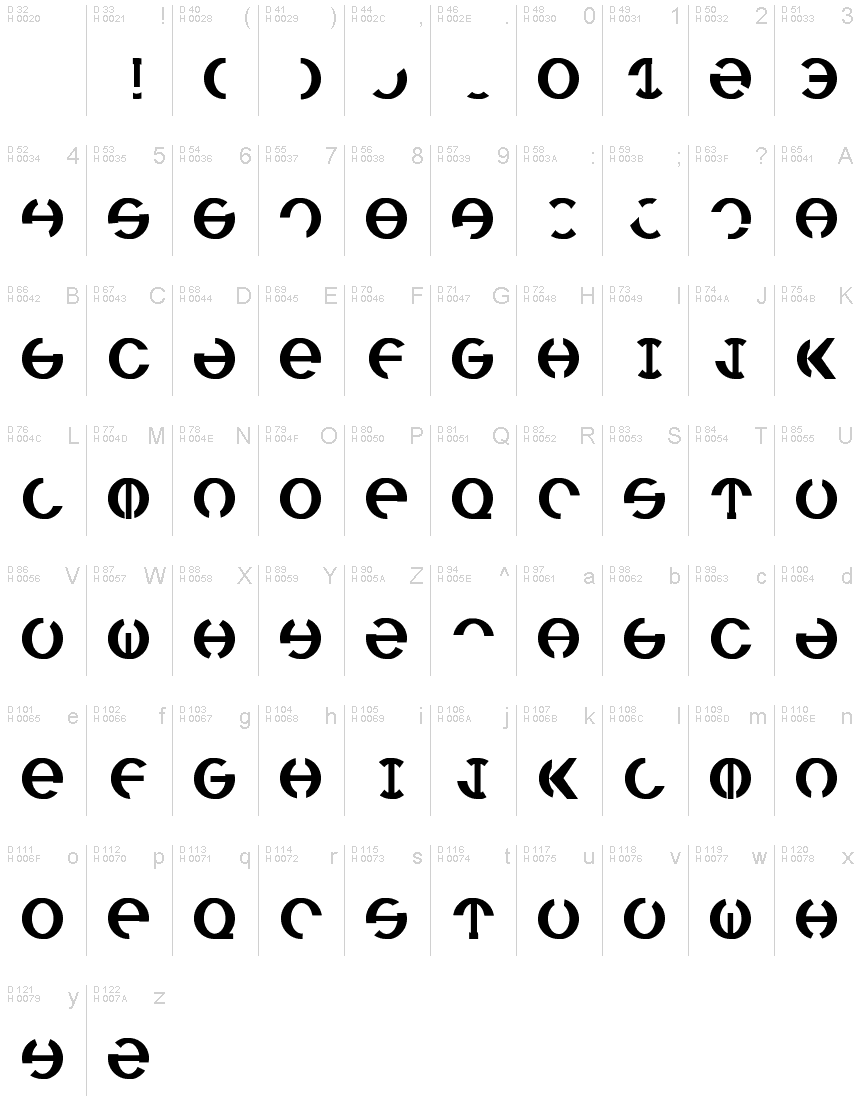
Opera 2015 Logo
The Opera 2015 Logo font is a captivating and dynamic display typeface that exudes elegance and sophistication. Its semi-bold weight adds a touch of strength and modernity to any project.
This versatile font is perfect for creating eye-catching logos, bold headlines, striking posters, and memorable advertisements. Its unique design and refined curves make it ideal for fashion branding, luxury products, artistic projects, or any concept that demands attention.
With Opera 2015 Logo font, your designs will stand out from the crowd and leave a lasting impression on your audience.
This versatile font is perfect for creating eye-catching logos, bold headlines, striking posters, and memorable advertisements. Its unique design and refined curves make it ideal for fashion branding, luxury products, artistic projects, or any concept that demands attention.
With Opera 2015 Logo font, your designs will stand out from the crowd and leave a lasting impression on your audience.